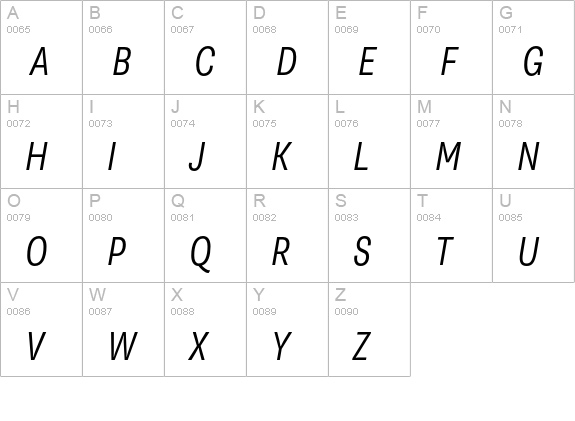
Supria Sans Cond Light Italic Font Details
Supria Sans Cond Light Italic is a refined, elegant, condensed-width, italic variant in the Supria typeface family \xE2\x80\x94 well suited to elegant body text, refined sub-headings, and luxury branding.
Introducing Supria Sans Cond Light Italic font, a modern and versatile typeface that exudes sophistication and elegance. Its sleek and slender design brings a touch of refinement to any project, making it perfect for a wide range of applications, from branding to editorial design. This font features delicate, slanted italics that add a subtle sense of dynamism and style to your text. The light weight of the font gives it a delicate and airy appearance, making it ideal for conveying a sense of lightness and sophistication. Best of all, Supria Sans Cond Light Italic font is available for free download at FontsMarket.com. Now you can elevate your designs with this beautiful font without having to worry about any additional cost. Don't miss out on this opportunity to enhance your projects with the elegance and charm of Supria Sans Cond Light Italic font. Download it today and see the difference it can make in your designs!